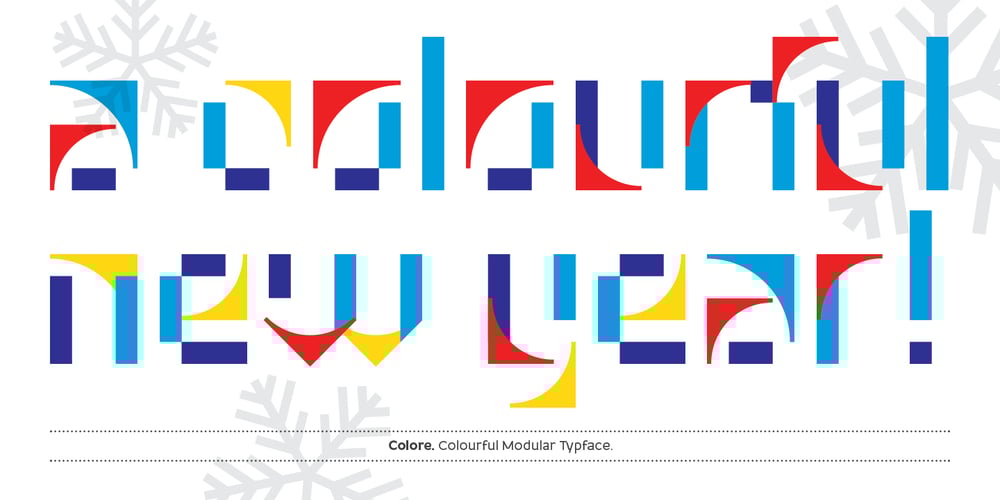
Colore Font Family was designed by Filippo Salmina and published by FSdesign-Salmina. Colore contains 5 styles and family package options. Colore. Colourful and Modular.A happy and colourful New Year from the FSdesign team.In order not to lose the joy of playing, we provide the “Colore” font family: a modular font kit, that encourages to play. By superimposing the different font styles you can create a colourful typographical staging.This New Year’s card was realized with the help of “Colore”. Too wild? auto-referential? Try Colore and form your own opinion.